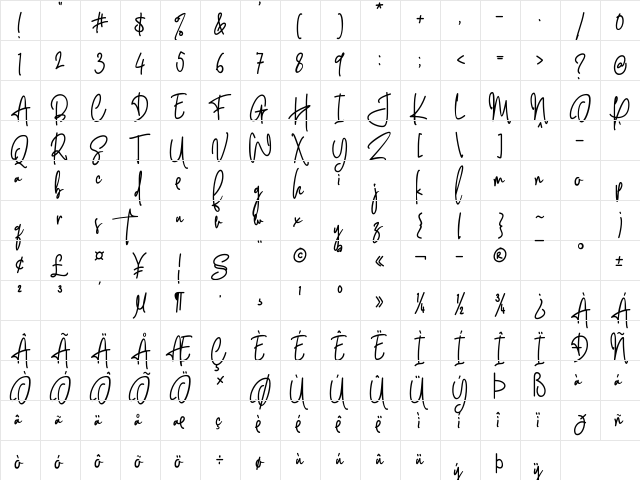
Behavior Indihome Regular Regular
| Designer | Aldedesign 2019 |
Design Context for Behavior Indihome Regular Typeface
Behavior Indihome Regular takes a measured approach to typography — its balanced proportions and neutral character make it a reliable workhorse for both digital and print work.